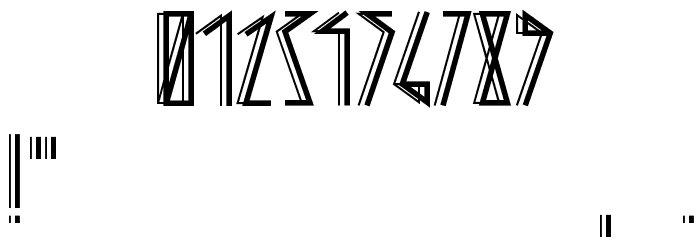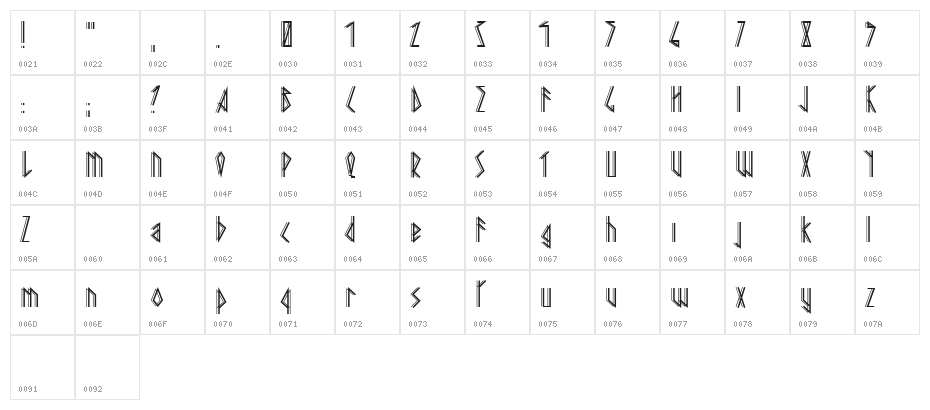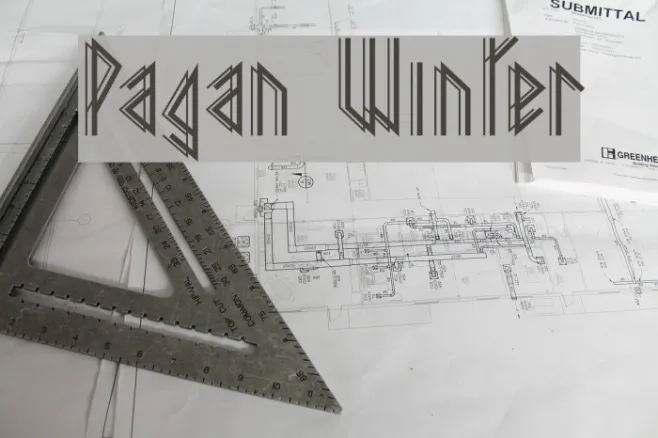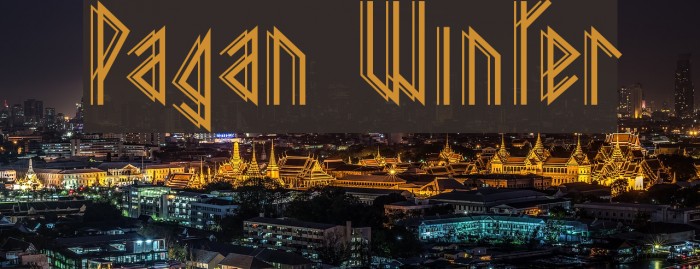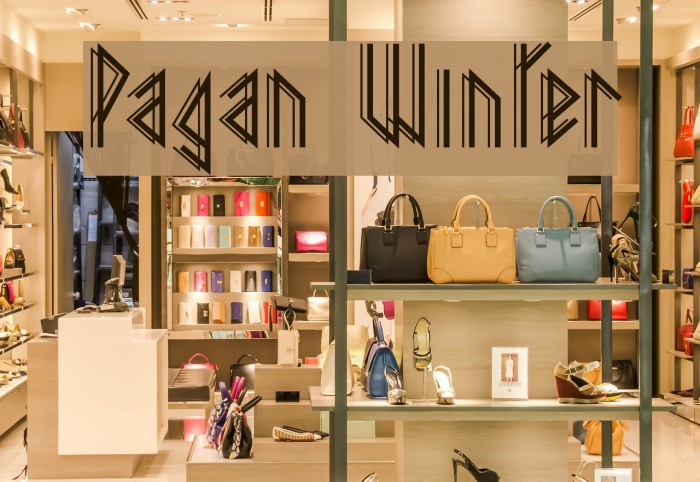
Pagan Winter Font
Pagan Winter Description
This font features a unique, angular design with a distinct geometric structure. The characters are composed of sharp lines and edges, creating a sense of movement and energy. Each letter is crafted with a series of parallel lines that converge at sharp angles, giving it a dynamic and futuristic appearance. The uppercase and lowercase letters maintain a consistent style, with the lowercase being slightly more compact. The numerals follow the same design principles, ensuring uniformity across the font. The special characters are also designed to match the overall aesthetic, making this font ideal for projects that require a bold and striking visual impact.
| Overall Style | Futuristic, Geometric |
| Proposed Projects | Ideal for sci-fi themed designs, video game graphics, posters, and branding that requires a bold and modern look. |